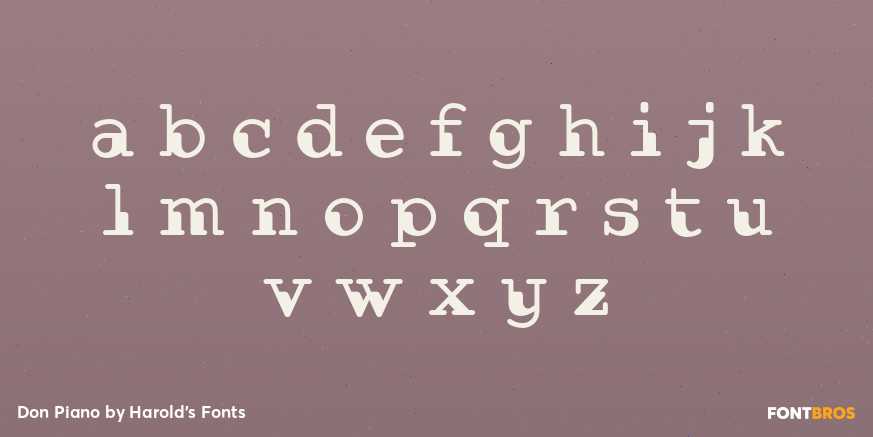
Don Piano
Font Family by Harold's Fonts
DON PIANO is an unusual font that combines the look of two 20th-century technologies: punch cards and typewriters. Its dark shapes and lighter strokes give an interesting syncopation to the words, almost musical. Available in Regular, with proportional spacing, and Monospaced.
Don Piano Regular
Don Piano Monospace